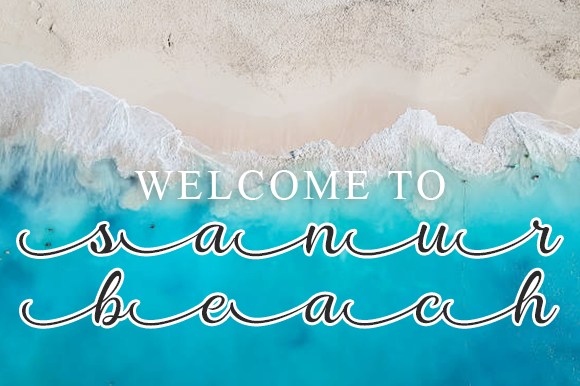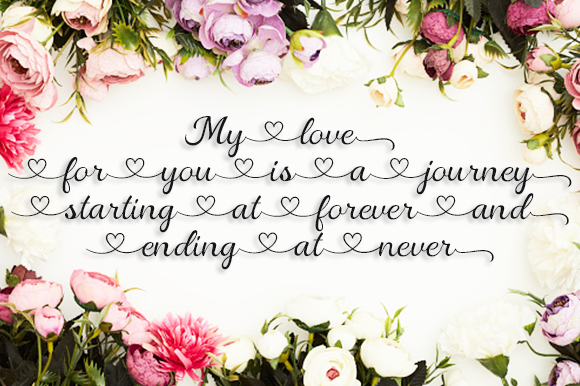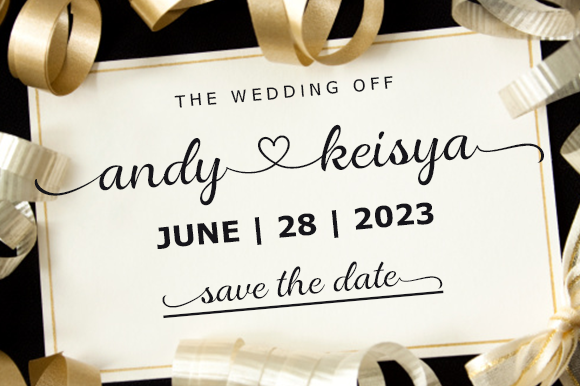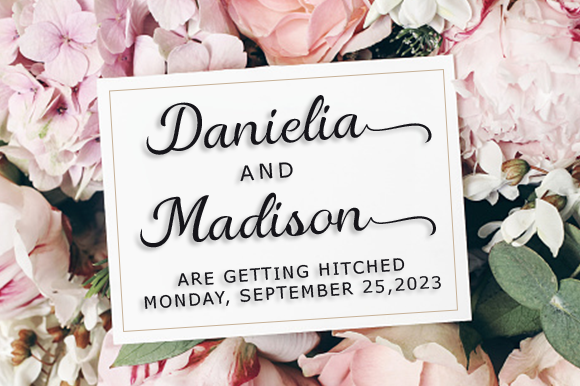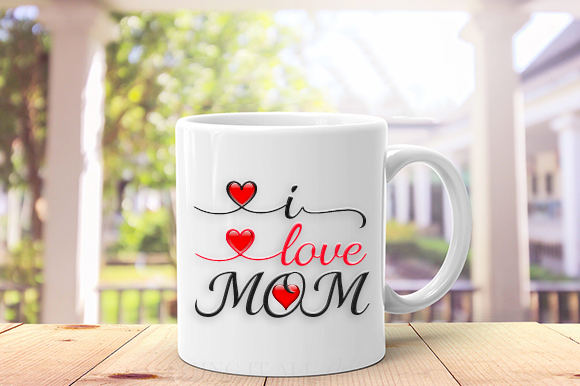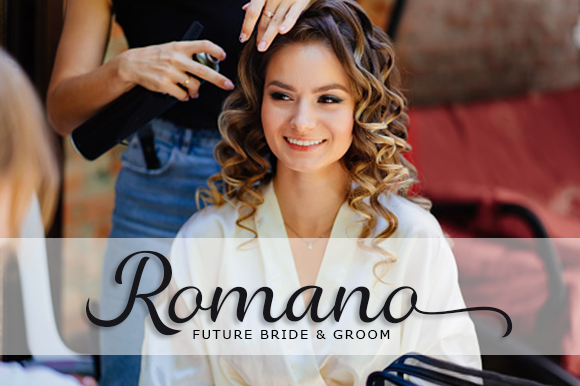
Introducing Boho Beach Font: The Ultimate Luxury Addition to Your Design Projects
Are you a designer or crafter looking for a unique and luxurious font to elevate your design projects? Look no further than Boho Beach Font, a romantic and sweet calligraphy typeface that’s sure to add a touch of elegance to any design. In this article, we’ll dive into the features and benefits of Boho Beach Font and explore how it can take your designs to the next level.
What is Boho Beach Font?
Boho Beach Font is a beautiful calligraphy typeface that’s perfect for designers and crafters who want to add a touch of luxury to their projects. This font features characters that dance along the baseline, creating a sense of movement and fluidity. The result is a romantic and sweet font that’s perfect for a variety of design projects, from wedding invitations and branding materials to packaging and advertising.
Key Features of Boho Beach Font
So, what makes Boho Beach Font so special? Here are just a few of its key features:
- PUA Encoded: Boho Beach Font is PUA (Private Use Area) encoded, which means that you can access all of the amazing glyphs and ligatures with ease. This makes it easy to create beautiful, unique designs that stand out from the crowd.
- Luxury and Elegant: Boho Beach Font is designed to add a touch of luxury to any design project. Its elegant, cursive lines and flowing curves make it perfect for high-end branding, advertising, and marketing materials.
- Romantic and Sweet: This font is perfect for designers and crafters who want to create romantic and sweet designs. Whether you’re working on a wedding invitation, a Valentine’s Day card, or a branding project for a luxury lifestyle brand, Boho Beach Font is the perfect choice.
- Versatile: Boho Beach Font is incredibly versatile, making it perfect for a wide range of design projects. Use it for titles, headings, and body copy, or as a decorative element to add a touch of elegance to your designs.
Benefits of Using Boho Beach Font
So, why should you choose Boho Beach Font for your design projects? Here are just a few benefits of using this beautiful font:
- Instant Luxury: Boho Beach Font adds an instant touch of luxury to any design project. Its elegant lines and flowing curves make it perfect for high-end branding, advertising, and marketing materials.
- Easy to Use: Boho Beach Font is incredibly easy to use, even for designers who are new to calligraphy fonts. Its PUA encoding makes it easy to access all of the amazing glyphs and ligatures, and its clear, legible lines make it perfect for a wide range of design projects.
- Unique and Creative: Boho Beach Font is a unique and creative font that’s sure to set your designs apart from the crowd. Its romantic and sweet lines make it perfect for designers and crafters who want to create beautiful, eye-catching designs.
How to Use Boho Beach Font in Your Design Projects
So, how can you use Boho Beach Font in your design projects? Here are a few ideas to get you started:
- Wedding Invitations: Boho Beach Font is perfect for wedding invitations, save-the-dates, and other wedding-related design projects. Its romantic and sweet lines make it perfect for creating beautiful, elegant designs.
- Branding and Packaging: Use Boho Beach Font to add a touch of luxury to your branding and packaging materials. Its elegant lines and flowing curves make it perfect for high-end brands and luxury lifestyle products.
- Advertising and Marketing: Boho Beach Font is perfect for advertising and marketing materials, from social media graphics to print ads. Its clear, legible lines make it easy to read, even at small sizes.
| Font Name | Boho Beach Font |
| Author | fontbrand19 |
In conclusion, Boho Beach Font is a beautiful, luxurious calligraphy typeface that’s perfect for designers and crafters who want to add a touch of elegance to their design projects. Its romantic and sweet lines, combined with its PUA encoding and versatility, make it the perfect choice for a wide range of design projects. Whether you’re working on a wedding invitation, a branding project, or an advertising campaign, Boho Beach Font is sure to elevate your designs to the next level.